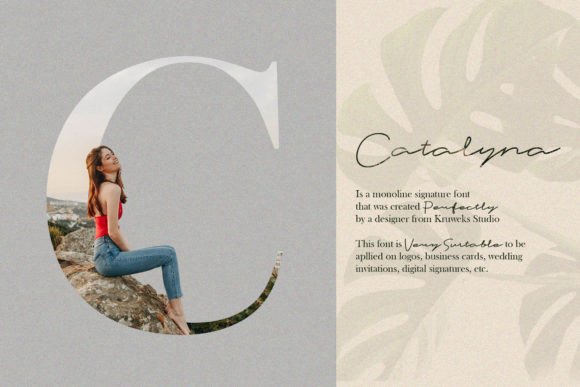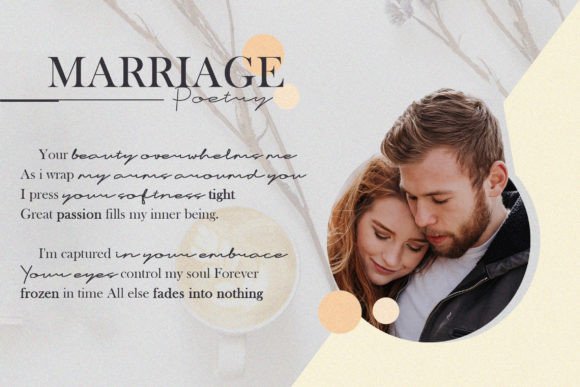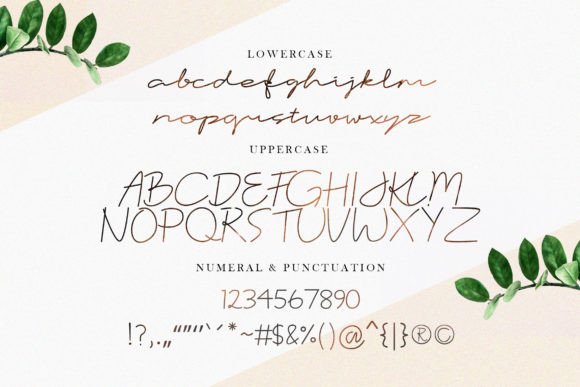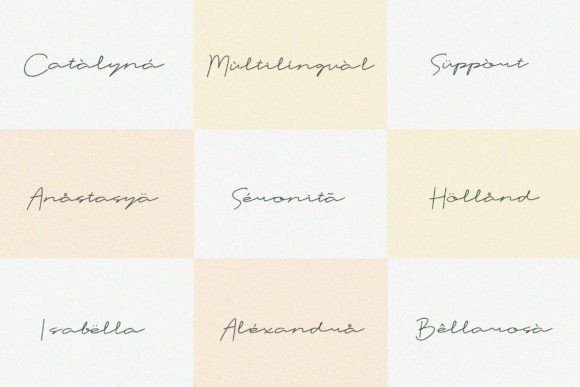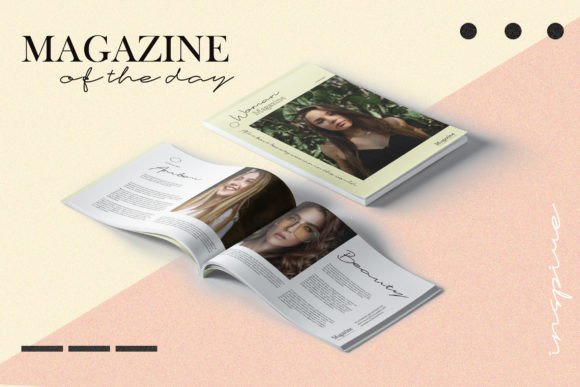
Catalyna Font: A Sweet and Simple Script with a Cool Feel
Catalyna is a beautiful, hand-crafted font that has taken the design world by storm. With its sweet and simple script, this font exudes an incredibly cool feel that’s perfect for a wide range of design projects. Whether you’re a designer, crafter, or DIY enthusiast, Catalyna is a must-have font that can elevate your work to the next level.
The Story Behind Catalyna Font
Catalyna is a carefully crafted font that’s designed to be both elegant and approachable. Its creator aimed to create a script that would be easy to read and write, while also having a unique and stylish feel. The result is a font that’s perfect for a variety of design applications, from branding and packaging to crafting and DIY projects.
Key Features of Catalyna Font
- Sweet and Simple Script: Catalyna’s script is both sweet and simple, making it easy to read and write.
- Incredibly Cool Feel: The font has a unique and stylish feel that’s perfect for designers and crafters who want to add a touch of personality to their work.
- Hand-Crafted: Catalyna is a hand-crafted font, giving it a personal and authentic feel.
- Versatile: The font is versatile and can be used for a wide range of design projects, from branding and packaging to crafting and DIY projects.
Using Catalyna Font in Design Projects
Catalyna is a versatile font that can be used in a variety of design projects. Here are a few ideas to get you started:
- Branding and Packaging: Use Catalyna to create unique and stylish branding and packaging for your business or product.
- Crafting and DIY Projects: Add a personal touch to your crafting and DIY projects with Catalyna’s sweet and simple script.
- Signage and Displays: Use Catalyna to create eye-catching signage and displays for your business or event.
- Digital Design: Use Catalyna in your digital design projects, such as social media graphics, blog posts, and website headers.
Tips for Getting the Most Out of Catalyna Font
Here are a few tips for getting the most out of Catalyna:
- Experiment with Different Sizes and Colors: Catalyna looks great in a variety of sizes and colors, so don’t be afraid to experiment and find the perfect combination for your design.
- Pair with Other Fonts: Catalyna pairs well with a variety of other fonts, so try pairing it with a bold or serif font to add contrast and interest to your design.
- Use in Combination with Images: Catalyna looks great in combination with images, so try using it to add text to your photos or illustrations.
Catalyna is a beautiful and versatile font that’s perfect for designers and crafters who want to add a touch of personality to their work. With its sweet and simple script and incredibly cool feel, Catalyna is a must-have font that can elevate your design projects to the next level. Whether you’re working on a branding project, crafting and DIY project, or digital design project, Catalyna is a great choice.